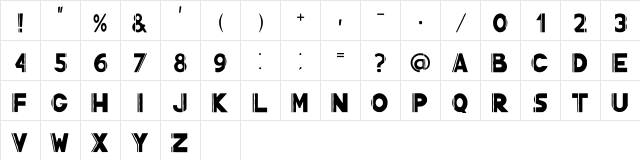
Zeldon Regular Font Preview
Zeldon Regular
Design Context for Zeldon Typeface
Zeldon is a composed and adaptable typeface that performs quietly and consistently across a wide range of design contexts.